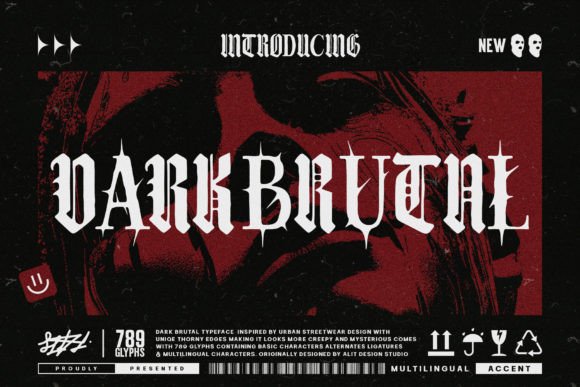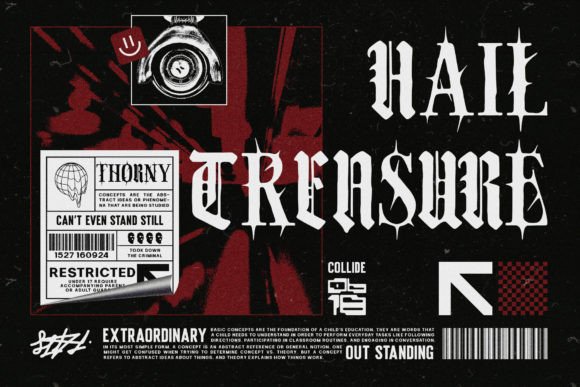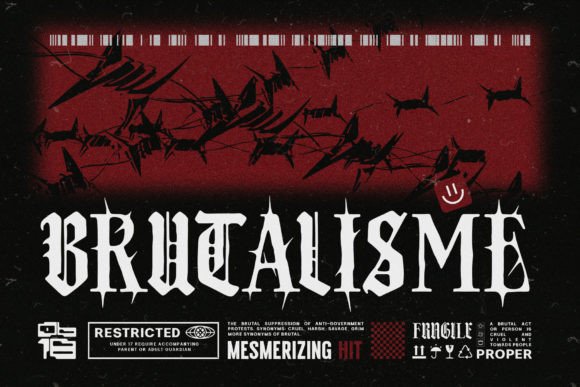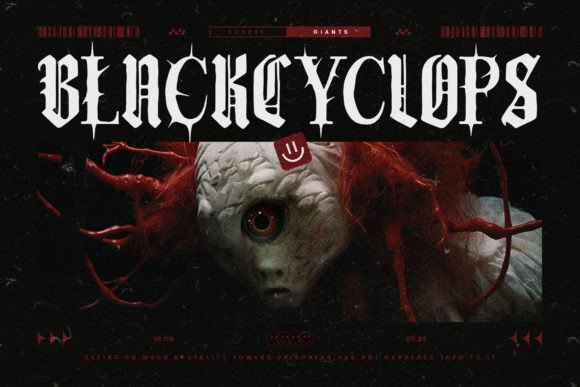
Dark Brutal Font: Grunge Blackletter Typography for Intense Designs
About the Dark Brutal Font
Let us introduce you to Dark Brutal Font, where timeless design meets modern craftsmanship. Introducing Dark Brutal Typeface, a powerful and unapologetically rugged blackletter font crafted for those who embrace the intensity of bold design. This font embodies the spirit of rebellion with its sharp edges, distressed strokes, and dark, medieval-inspired aesthetic. Perfect for creating a fierce visual impact, it’s ideal for projects that demand attention—whether it’s in music, fashion, or alternative branding.
Perfect For:
Heavy metal, punk, and gothic-themed posters and album covers.
Edgy branding and logo designs that need a dark, authoritative presence.
Clothing lines, streetwear, or merchandise seeking a gritty, rebellious vibe.
Tattoo designs, custom lettering, and creative projects with a rough, ancient feel.
The Dark Brutal Typeface is not just a font—it’s a visual statement. With its rough textures and imposing style, it gives every project a sense of unrelenting power. Whether you’re designing for print, web, or merchandise, this typeface brings a bold, dramatic edge that demands attention.
Unleash the darkness with Dark Brutal Typeface, and watch your designs transform into raw, unrefined works of art.
Dark Brutal Font Usage Examples
Dark Brutal Font Example